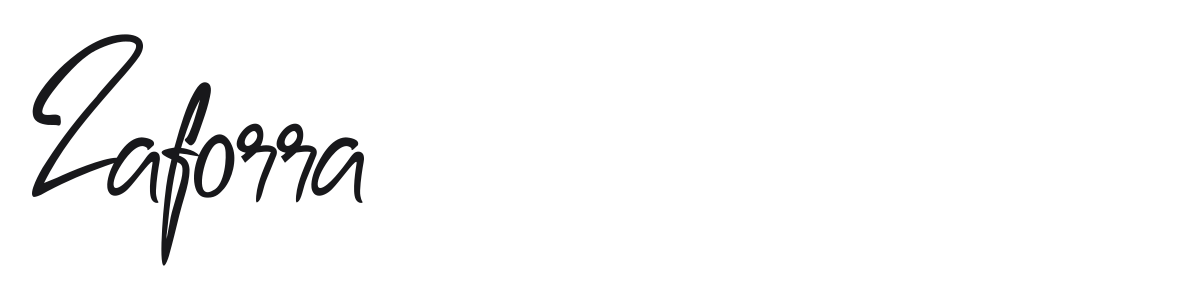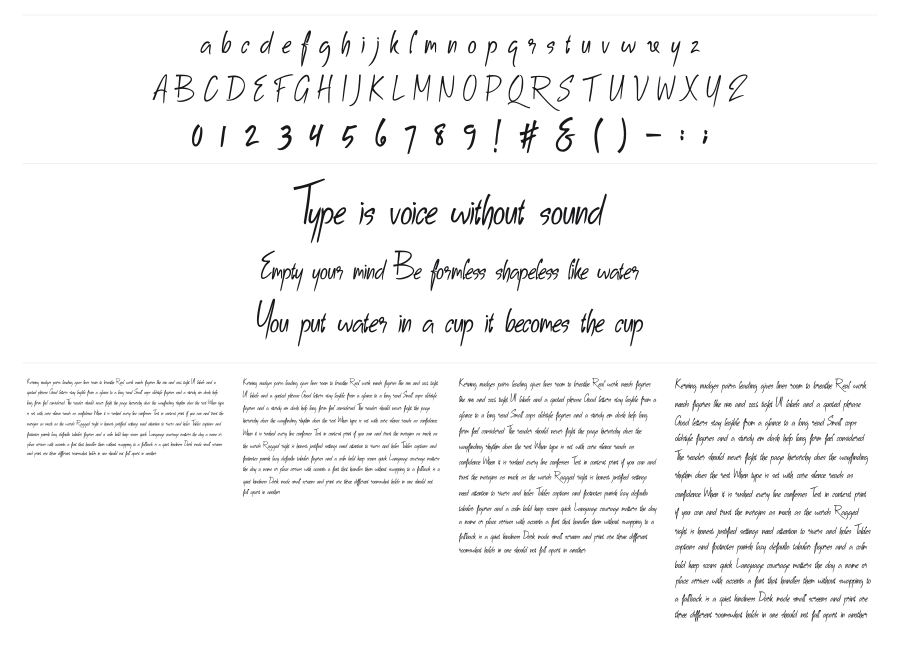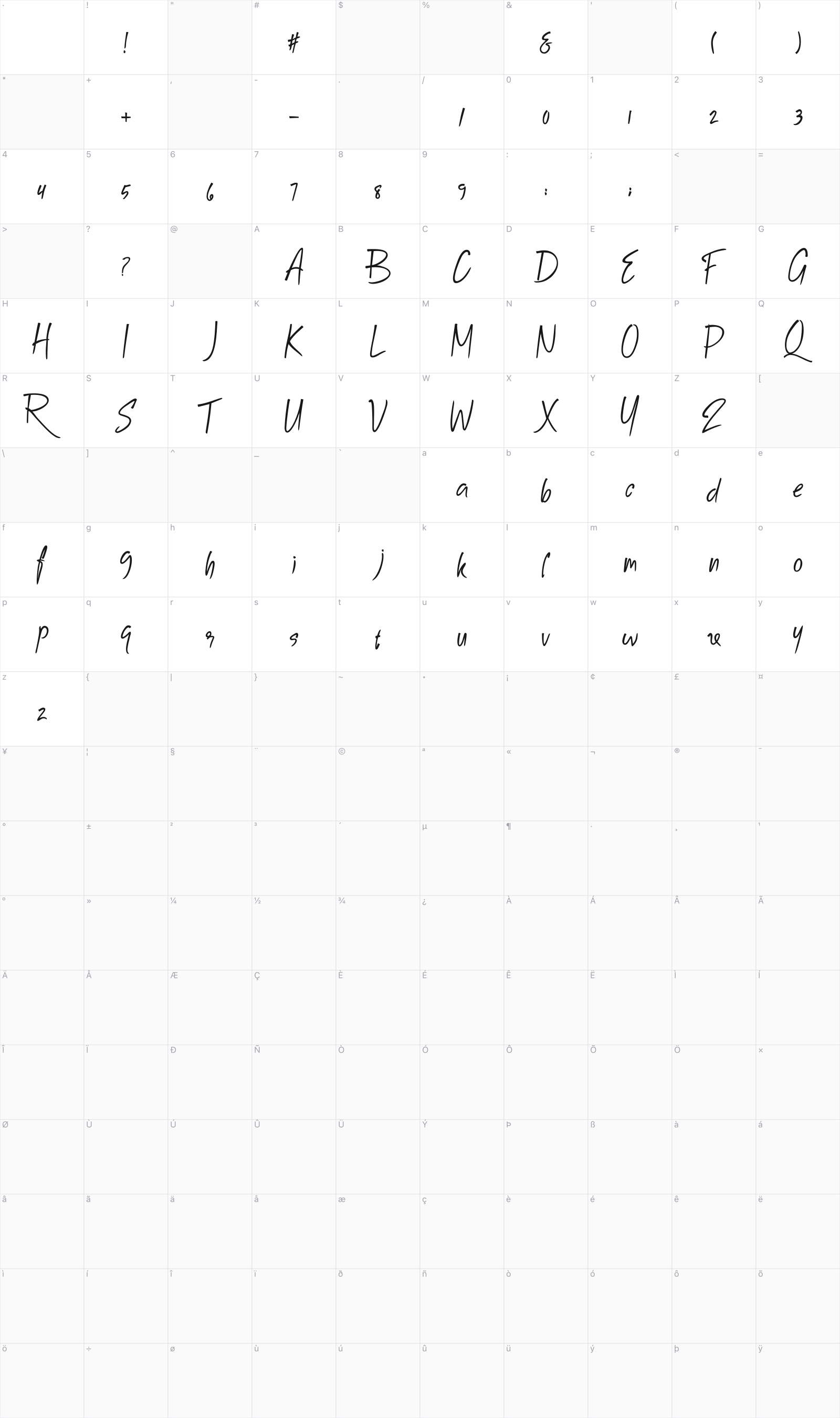
Zaforra
by Vacatype Co.
Zaforra is a casual handwritten script with the loose, fluid energy of a marker pen moving quickly across the page. Its connecting strokes and varied letter heights give it a natural, unpolished rhythm that feels personal without being sloppy. Good for logotypes, packaging headlines, or any project that needs warmth and spontaneity.